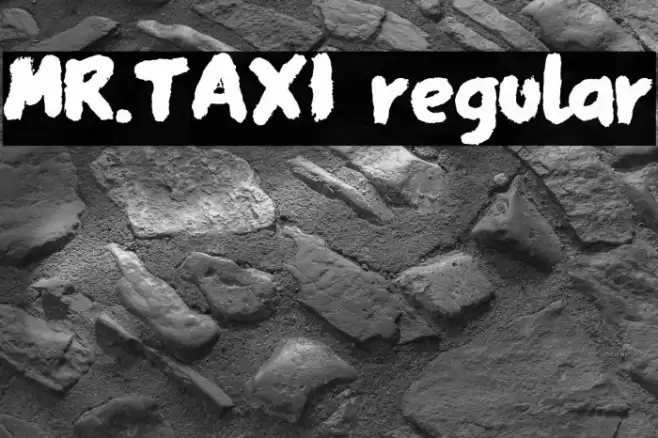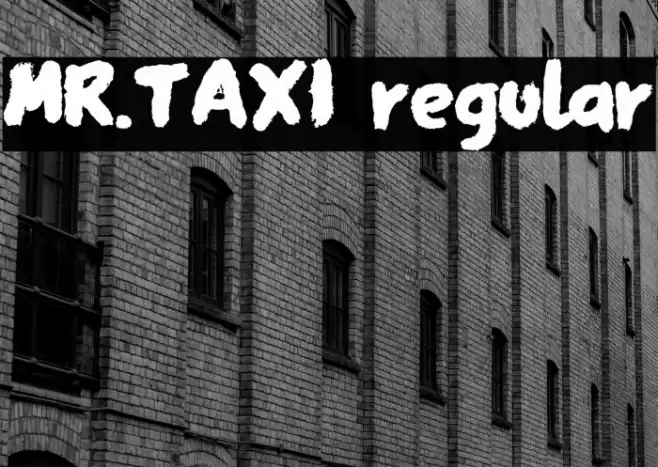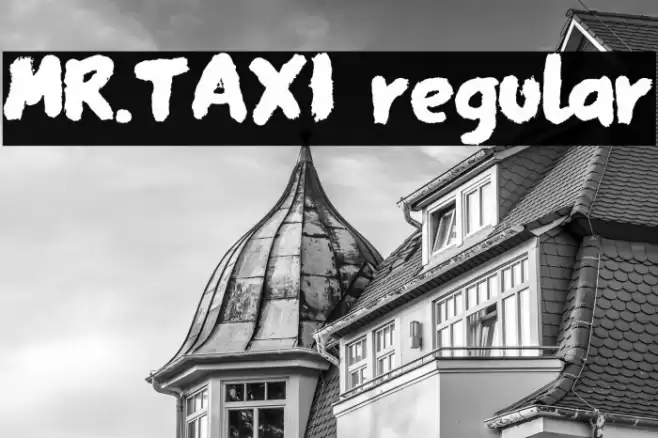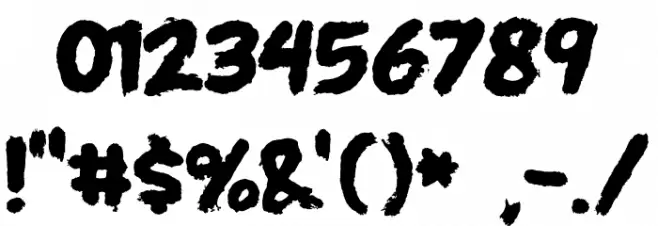
MR.TAXI regular Font
MR.TAXI regular Description
This font features a bold and expressive style with a hand-painted appearance. The characters are thick and have an irregular, textured edge that gives a dynamic and energetic feel. The uppercase and lowercase letters maintain a consistent weight, creating a cohesive look. Numbers and special characters follow the same bold, textured style, ensuring uniformity across all glyphs. The font's design is reminiscent of brush strokes, adding a personal and artistic touch. Its unique style makes it stand out, ideal for projects that require a strong visual impact.
A bold, hand-painted style font with textured edges and a dynamic appearance from Regular fonts.